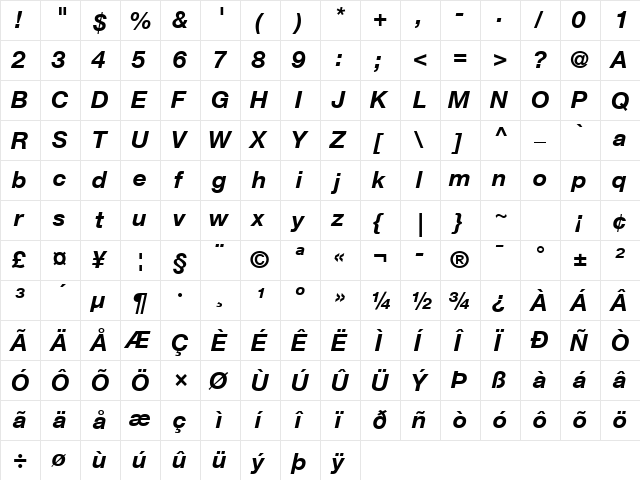
Helvetica Neue LT Com 76 Bold Italic
| Foundry | Linotype GmbH |
| Designer | Linotype Design Studio |
Design Context for Helvetica Neue LT Com Typeface
Helvetica Neue LT Com is a composed and adaptable typeface that performs quietly and consistently across a wide range of design contexts. The dynamic lean of this cut emphasises speed and emphasis in any layout. The heavy weight commands attention and anchors typographic hierarchies.
Pro Tip: Use Helvetica Neue LT Com for emphasis, pull quotes, and subheadings where its slanted energy can add rhythm to the layout.